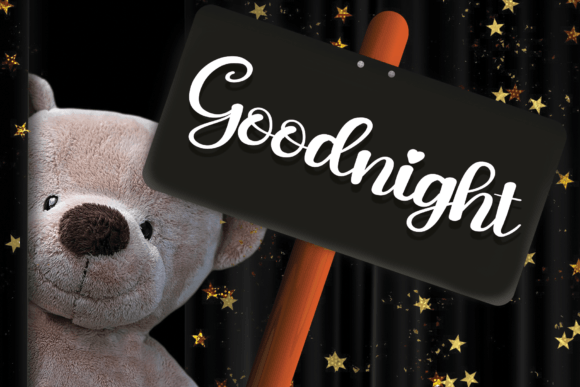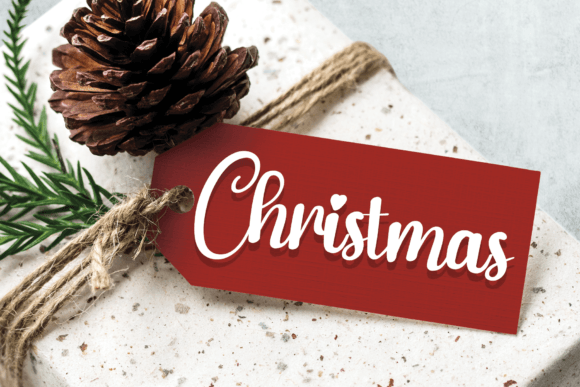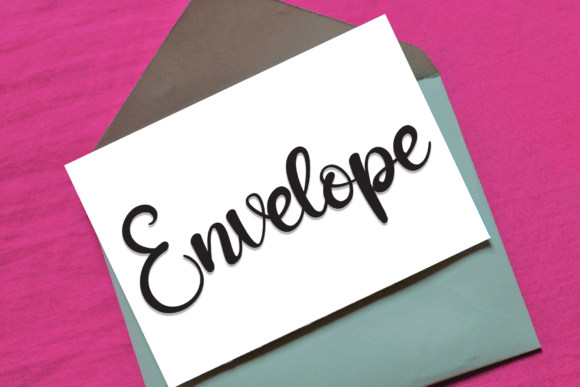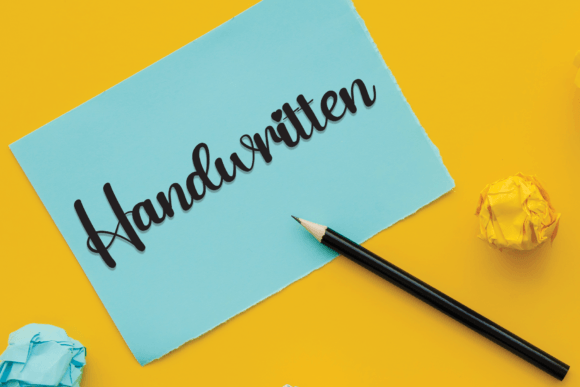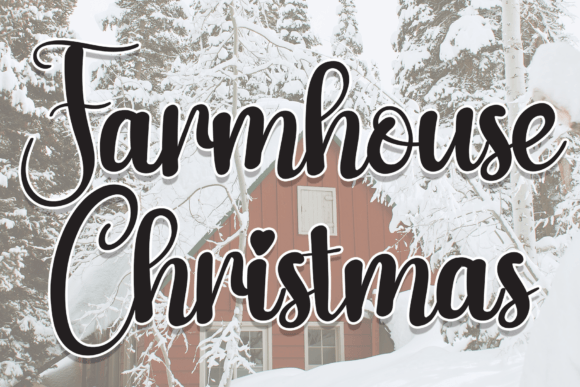
Introducing Farmhouse Christmas Font: The Perfect Addition to Your Holiday Designs
Are you a designer or crafter looking for a unique and charming font to add a personal touch to your holiday designs? Look no further than Farmhouse Christmas Font! This sweet and smooth handwritten font is perfect for creating festive and romantic designs that will capture the essence of the holiday season.
What Makes Farmhouse Christmas Font So Special?
Farmhouse Christmas Font is a one-of-a-kind handwritten font that exudes a sense of warmth and coziness, making it ideal for holiday designs. Its cute and playful style is sure to add a touch of whimsy to any project, from wedding invitations and cards to holiday-themed crafts and decorations.
One of the standout features of Farmhouse Christmas Font is its versatility. Whether you’re creating a formal or informal design, this font is sure to fit the bill. Its smooth and flowing lines make it easy to read, while its playful style adds a touch of personality to any project.
Farmhouse Christmas Font is an excellent choice for wedding invitations and cards. Its romantic and personal style is sure to make your designs stand out, and its smooth lines make it easy to read. Whether you’re creating a formal or informal wedding invitation, this font is sure to add a touch of elegance and sophistication.
In addition to wedding invitations, Farmhouse Christmas Font is also perfect for creating holiday cards, gift tags, and other festive designs. Its playful style and romantic feel make it an excellent choice for any holiday project.
Why Designers and Crafters Love Farmhouse Christmas Font
Designers and crafters love Farmhouse Christmas Font for its unique and charming style. Here are just a few reasons why:
- Unique and Handwritten Style: Farmhouse Christmas Font is a one-of-a-kind handwritten font that adds a personal touch to any design.
- Versatile and Easy to Use: This font is easy to use and can be used for a wide range of projects, from formal to informal designs.
- Romantic and Playful Style: Farmhouse Christmas Font has a romantic and playful style that’s perfect for holiday designs.
- High-Quality and Smooth Lines: This font has high-quality and smooth lines that make it easy to read and perfect for printing.
Tips for Using Farmhouse Christmas Font
Here are a few tips for using Farmhouse Christmas Font in your designs:
- Pair it with Other Fonts: Farmhouse Christmas Font pairs well with other fonts, such as serif and sans-serif fonts. Experiment with different font combinations to find the perfect look for your design.
- Use it for Headings and Titles: This font is perfect for headings and titles, as it’s easy to read and adds a touch of personality to any design.
- Add it to Your Design Toolkit: Farmhouse Christmas Font is a versatile font that can be used for a wide range of projects. Add it to your design toolkit and use it again and again.
Farmhouse Christmas Font is a sweet and smooth handwritten font that’s perfect for holiday designs. Its cute and playful style, romantic feel, and versatility make it an excellent choice for designers and crafters. Whether you’re creating wedding invitations, cards, or other festive designs, this font is sure to add a personal touch and make your projects stand out.